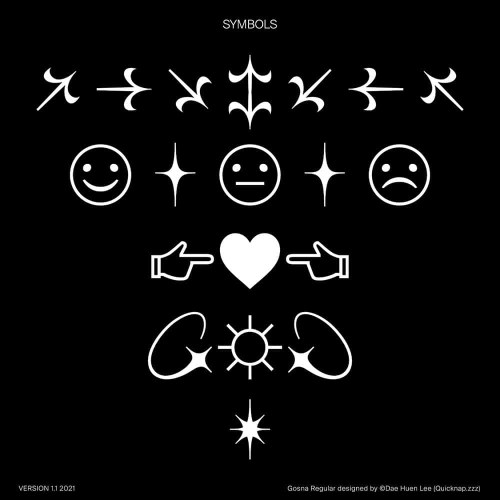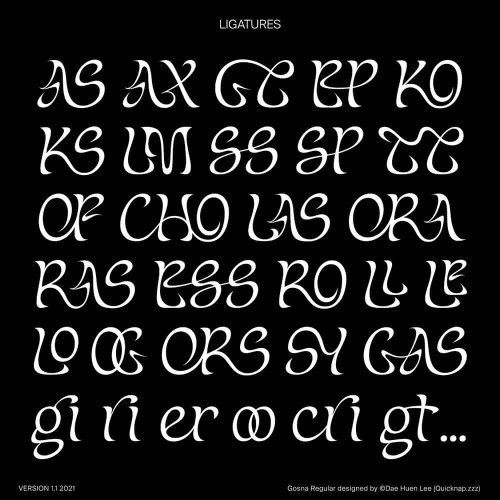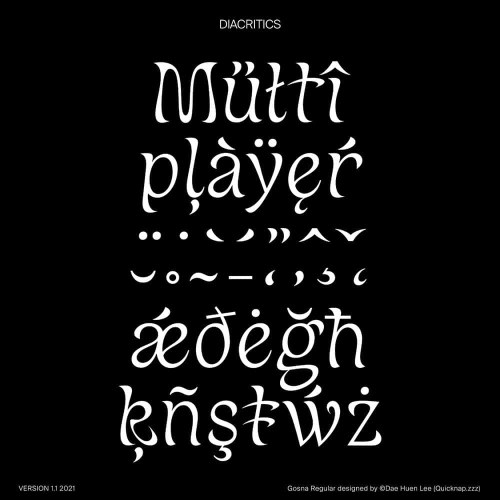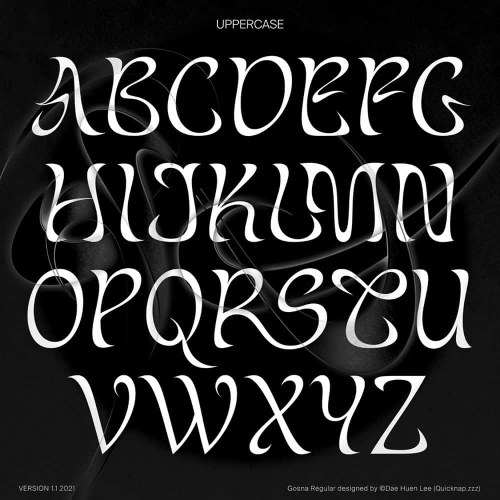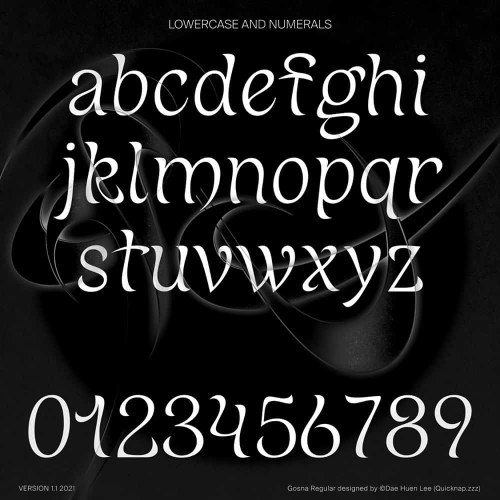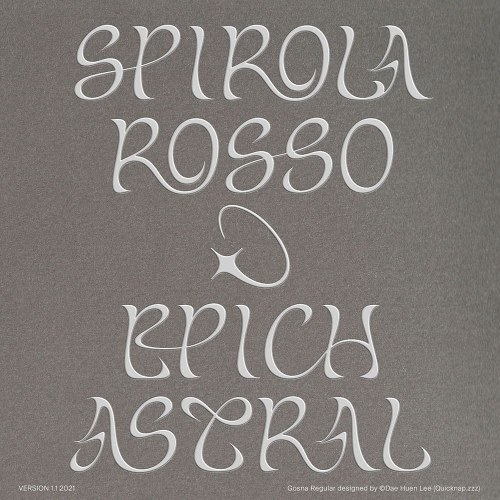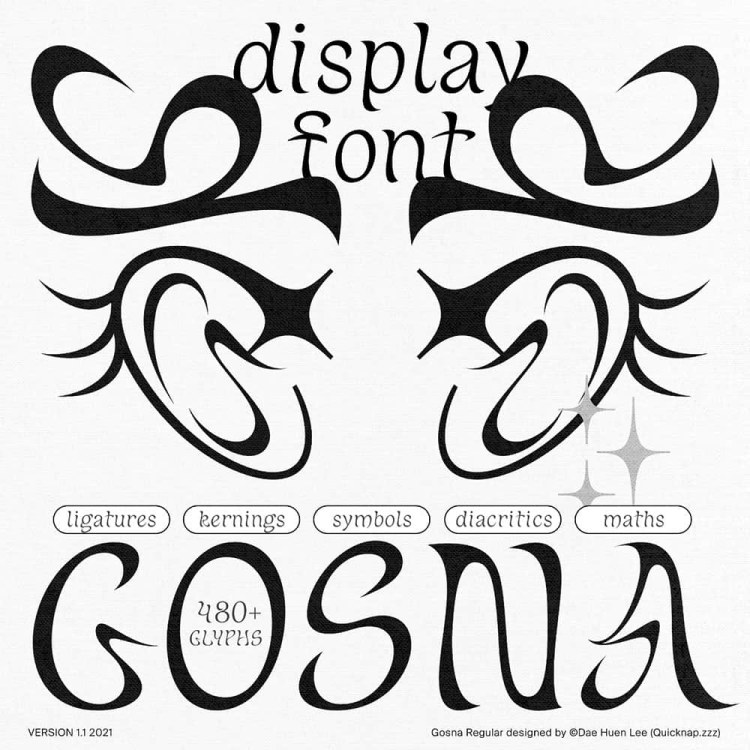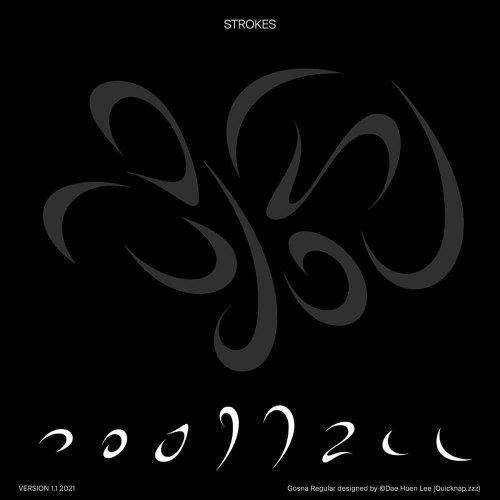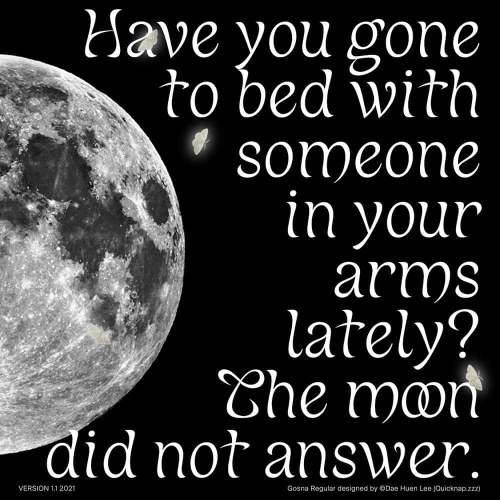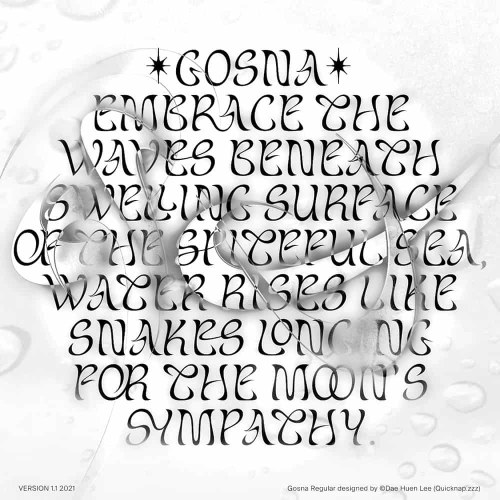
Gosna Font
Gosna is a display font reminiscent of brush strokes flowing in a dynamic and gestural manner. Delicate, pointy finishes highlight a focus on sharp movements, sometimes linking letters in the form of ligatures for even wavier compositions. Gosna is inspired by jazz solo improvisations and can benefit any text with a lively musical quality. Each stroke is indeed thought of as a phrase, filled with tension and release.
Gosna Font is a Display Fonts font that brings a professional and versatile look to your projects. Gosna is a display font reminiscent of brush strokes flowing in a dynamic and gestural manner.